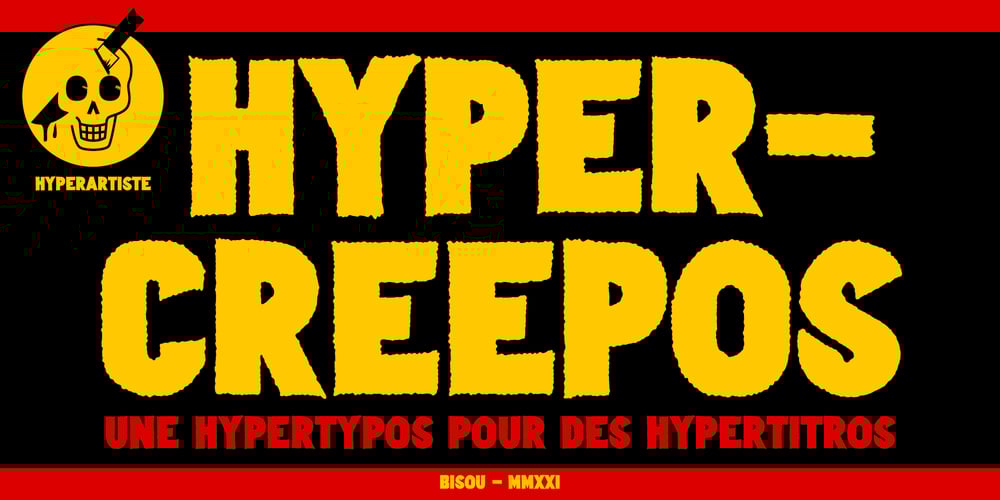
Hypercreepos Font Family was designed by Mathias Antonietti and published by Bisou. Hypercreepos contains 1 styles and family package options. Hypercreepos is a sweet and creepy hyper-bold font inspired by the horror comic books of the 60s. Handmade in La Chaux-de-Fonds (Switzerland) on lined A4 papers, the letter’s shape is conscientiously designed to give a punchos impact on the reader. The unique and vibrant contours are drawn on an improvised backlit table inherited from Bisou’s mother. Definitely contemporary, the overall feeling given off by Hypercreepos is profound and human, evoking the graphite smell of the comic’s workshops. Exclusively made for titles, this impactos font will suite with delight the text of posters, signs of comics bookstore, gaming bar, horror movie theater or film festival. That said, the designer is not responsible for the use of Hypercreepos and wish it will serve beyond all expectation.